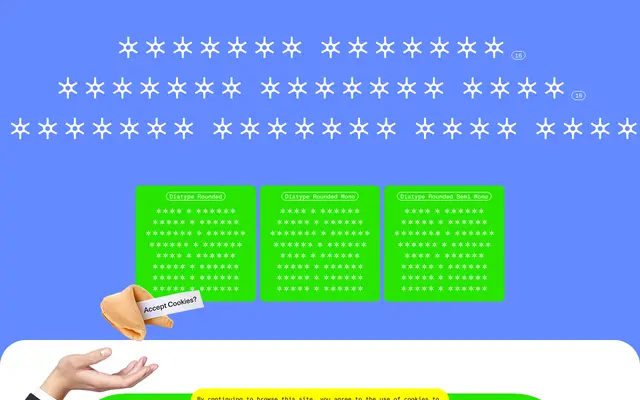
Diatype Rounded
A rounded Neo-grotesque with an intentionally mechanical warmth, extended into mono and semi-mono variants across eight weights.
Built on Swiss Neo-grotesque bones, each letterform has been individually buffered to produce terminals that read as though engraved with a single continuous tool stroke. The family spans eight weights from Thin to Ultra with matching italics, and branches into Diatype Rounded Mono and Semi Mono for tabular and coding contexts. Numerous OpenType alternates including capital G, lowercase a, q, t and R allow fine-tuning of the tone from clean to slightly playful.
Rooted in the Swiss Neo-grotesque tradition, Diatype Rounded applies uniform terminal rounding that gives the genre an approachable, mechanical quality rather than the usual clinical neutrality.